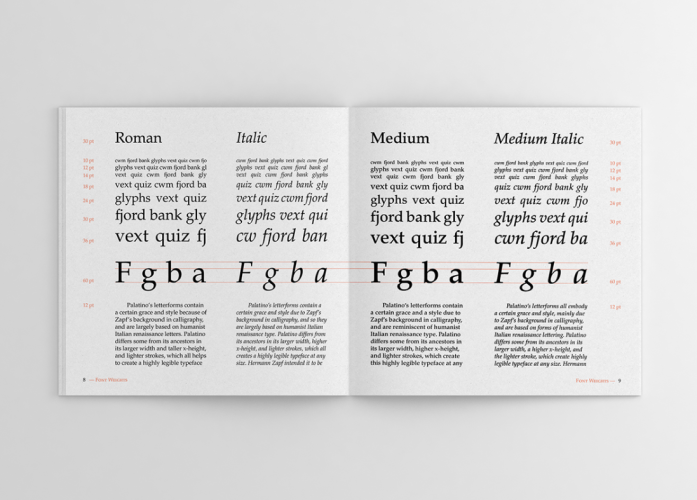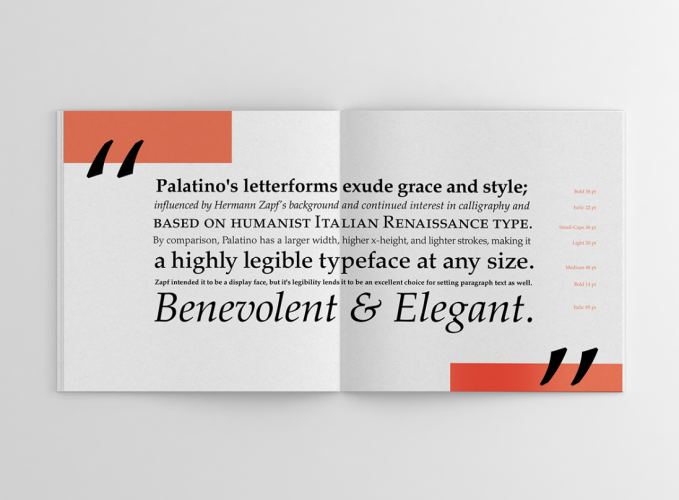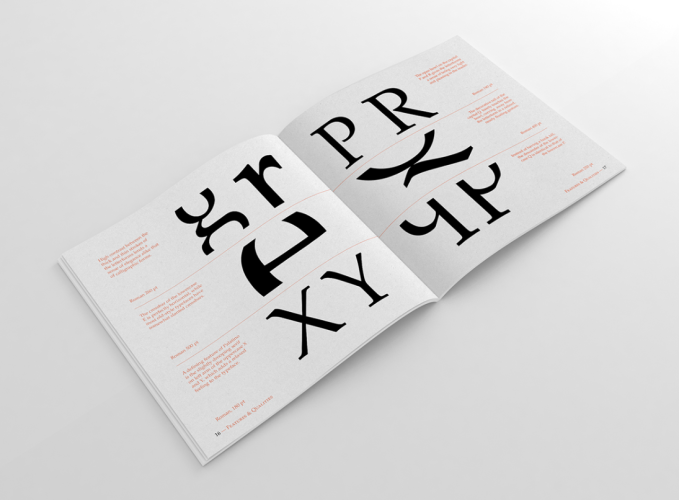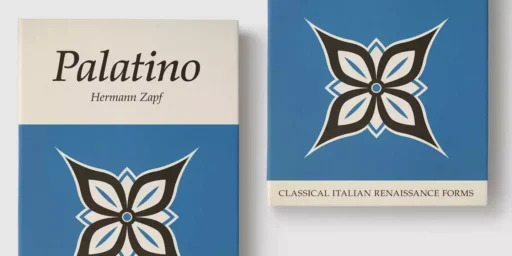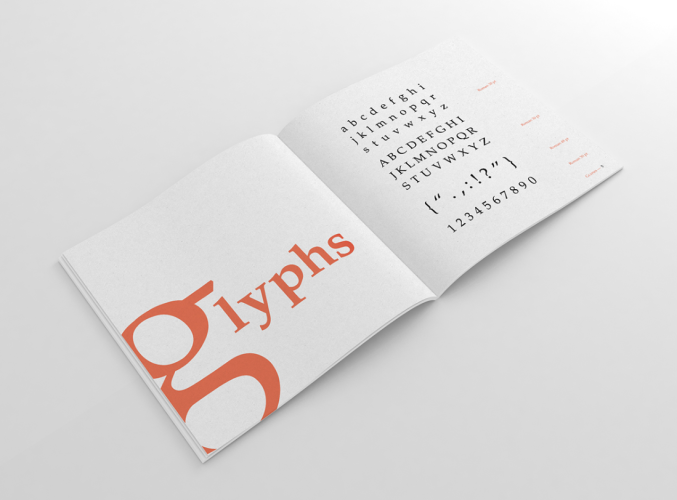
Palatino Font
Palatino is a popular font from the highly acclaimed designer Hermann Zapf, who created his remarkable design in the 1940s. It is timeless and indispensable for those who aim to communicate a sophisticated and polished taste in their designs. Palatino’s ability to invade trends and remain timeless in a landscape as fickle as type world showcases its superior quality and adaptability.
Palatino’s timelessness is not so much its design aesthetic appeal but its versatility in various practical design applications. Palatino typeface is an excellent choice whether you use it for formal and elegant settings or more casual and contemporary occasions; it always provides an extra atmosphere of elegance and refinement, which is impossible to achieve with many other typefaces. Its versatility makes it a designer’s and artist’s toolkit, as it helps them explore various creative options.
Palatino’s renown is sustained by the beauty of harmony and the balance of function and form. The font with balanced proportions and elegant pointed curves looks stunning. It is very readable, so it quickly attracts attention, and in combination, it gives an impression of sophistication. Palatino’s ability to preserve clarity and readability, even at small sizes or on low-resolution screens, makes it one of the most dependable and versatile fonts for designers who want to create a timeless and universal style.
Palatino is a popular and elegant font created by celebrity typographer Hermann Zapf in the 1940s. Zapf based his style on the italic and calligraphic traditions of the Renaissance. The influence of these traditions on the development of modern typography is significant. Zapf’s highly-considered letterforms are the result of years of refinement and his penchant for calligraphy.
They named this typeface after Giambattista Palatino, a Renaissance master calligrapher. He wanted to express this sentiment in a modern, easy-to-read font.
Zapf devoted much time to working on Palatino’s style, only aiming to build a typeface that would last forever. Zapf’s Palatino’s ability to assert its position and remain an impact factor in modern typography speaks for itself. It shows how Zapf achieved his goal.
As its top feature, Palatino fits into virtually any design project and is equally remarkable when utilized in printed media or digital environments. Whether it be in print media, digital format, or any other medium, Palatino leaves an unforgettable impression on the viewer.
Palatino strikes again with superior readability and legibility. It become a popular choice for books, magazines, and stationery. The font’s proportions are equally balanced, and its legibility is greatly improved by the visually striking letterforms, which the printed material gains visually from the design improvement. The Palmintos, a typeface encapsulating timeless elegance, is highly suitable for all high-end and luxury print products. Its sophisticated qualities can make the overall appearance more noble and fancy.
The digital world has continuously evolved, and Palatino proved its worth in digital design. Incredibly, the font outperforms even in small screens or low-definition venues, demonstrating Hermann Zapf’s mastery and dedication to its design. Palatino’s transparency and legibility make it a widely used font for websites, UI (user interfaces), and digital publications. It could easily be mixed into the design system’s visual language, helping users navigate intuitively.
Designers, when selecting Palatino in their print and/or digital works, utilize the font’s eternal elegance and flexibility along with the result. This allows them to make distinct and visually attractive designs for the audience. With Palatino used as the principal font or to integrate with additional fonts, it possesses a wide range of design utilities that make it a quintessential designer’s tool.
Any design project that uses a Palatino typeface will not only bring class and style to the design but also ensure its proper functioning. Designers who grasp the main considerations attached to the use of Palatino font will be capable of maximizing its potential and producing visually outstanding designs that will spellbound the audience.
Palatino’s overall atmosphere and design style. Palatino’s reserved and dignified features make it an ideal choice for more formal and refined applications such as high-class journals, corporate house style, and luxury package design. Nevertheless, its adaptability enables the font to deliver a seamless connection with both formal and casual or modern design contexts. This allows discretion and exquisiteness.